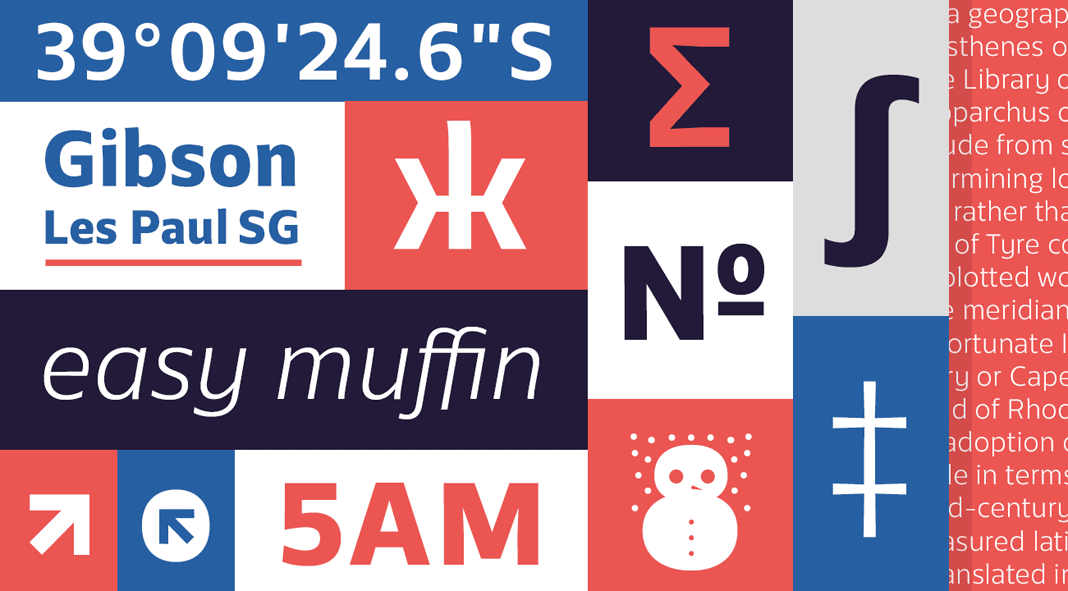
The Cormac typeface, a humanist font family published by foundry Typedepot in early 2017.
Designed by Alexander Nedelev for foundry Typedepot, Cormac is a simple yet friendly humanist font family that comes with diverse weights and typographic extras. The idea behind this typeface was to renounce all unnecessary forms while offering a friendly look and feel. Its humanistic character fits perfectly to modern applications whether print or web. Please read more below or click on the following link to get further information.
The Cormac font family, a modern typeface for multipurpose.
The friendly and legible design is mainly characterized by a large x-height and slightly flared stems. With subtle influences of calligraphic work, Cormac’s proportions are closer to traditional old style typefaces. Its diverse weights range from Extra Thin to Black. Equipped with true Italics, a wide range of numerals, ligatures, fractions, special characters, and multilingual support including Cyrillic letters, this family has been made for highest professional needs. Please note, the family is currently available as introductory offer on Fontspring, just follow the link below.